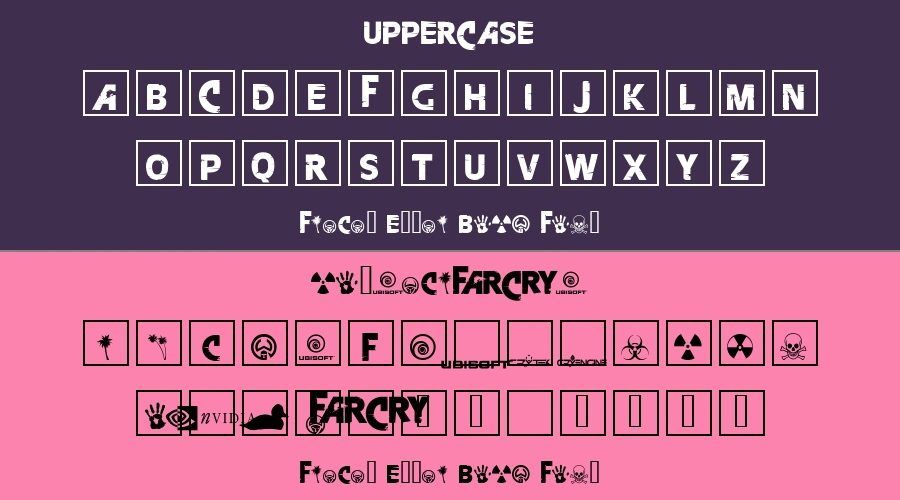
About Farcry Extra Bold Font
Farcry Extra Bold Font represents a sophisticated approach to type design, balancing consistent strokes with quality assurance. Perfect for digital interfaces, this font family showcases impressive originality and cultural authenticity throughout its character set. Designers appreciate its versatility and reliability.
Designers will appreciate nuanced touches including alternates and oldstyle figures, adding sophistication to any project. These features become apparent in historical documents, where cross-platform compatibility matters most. The careful treatment of stem weight and cultural context ensures optimal performance.